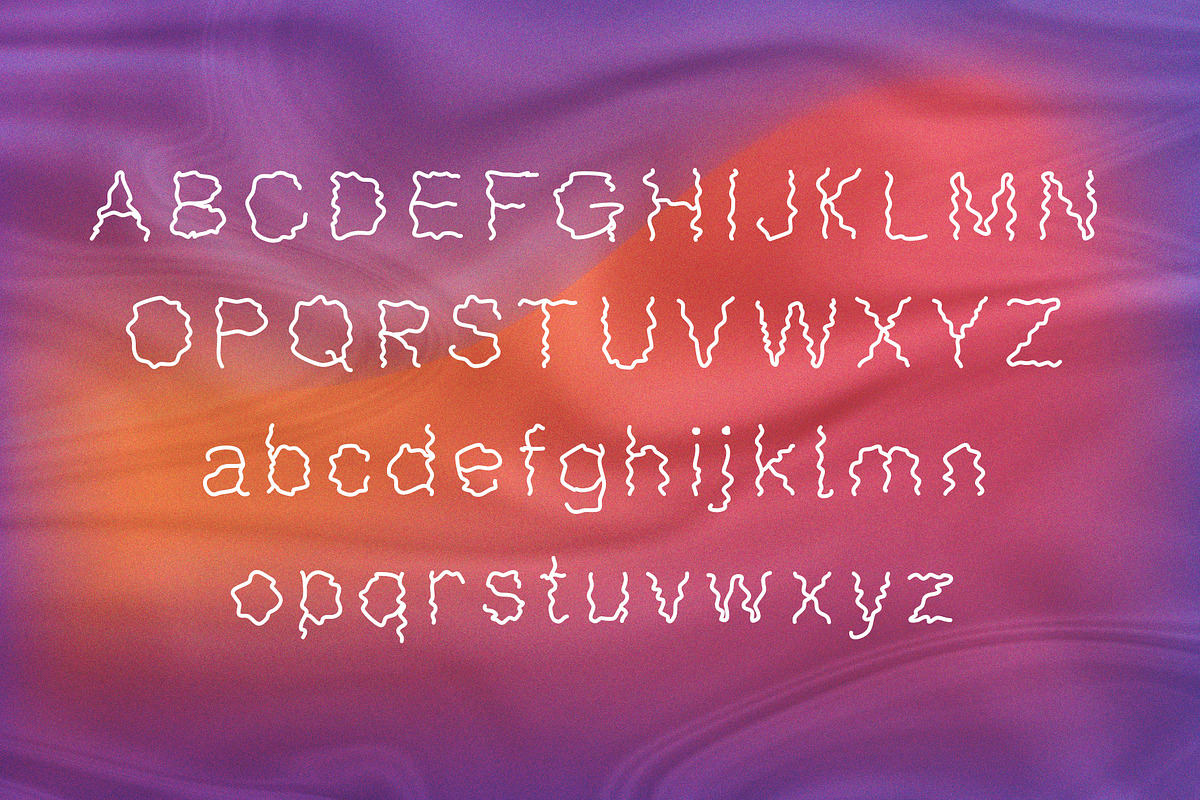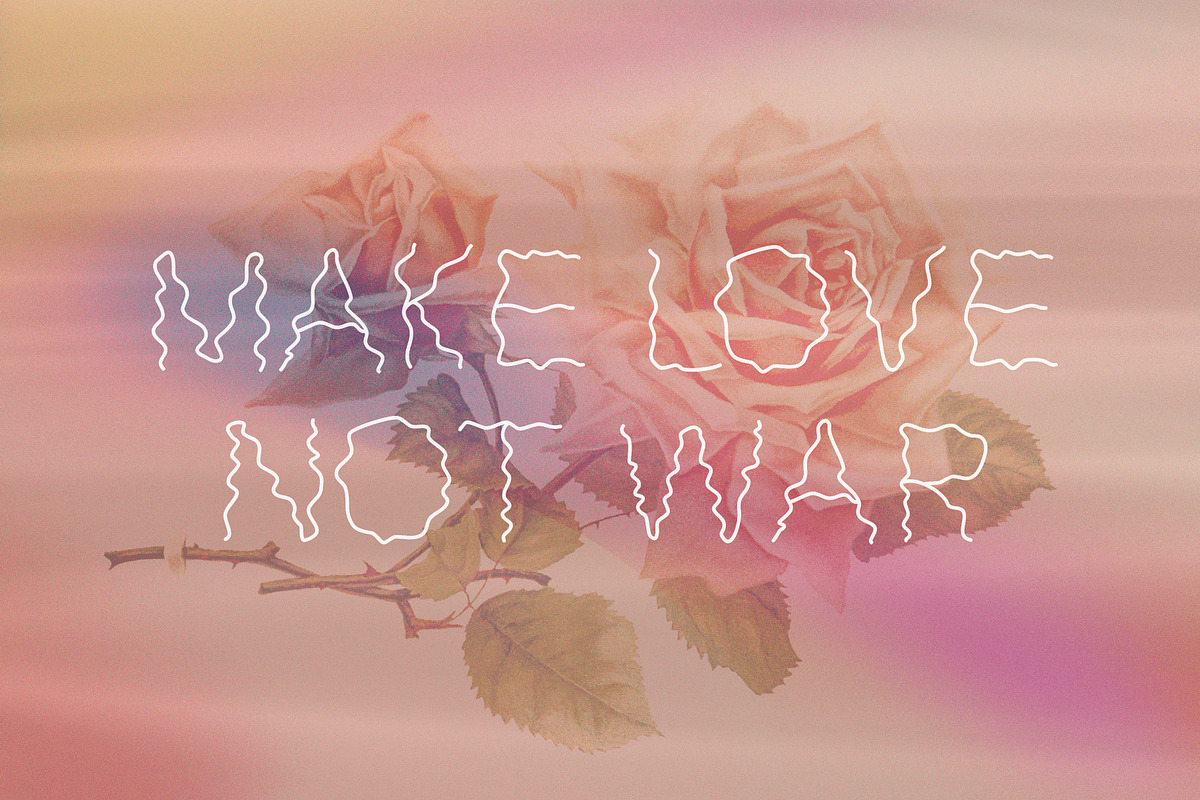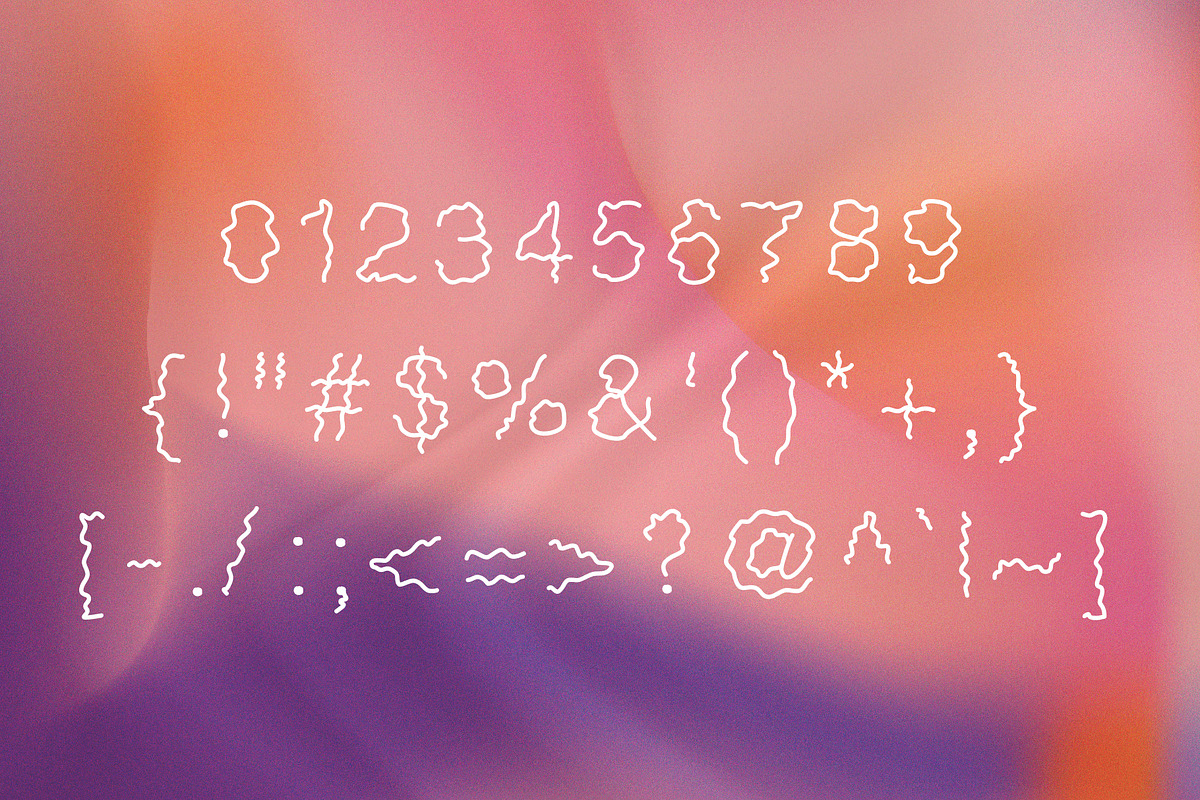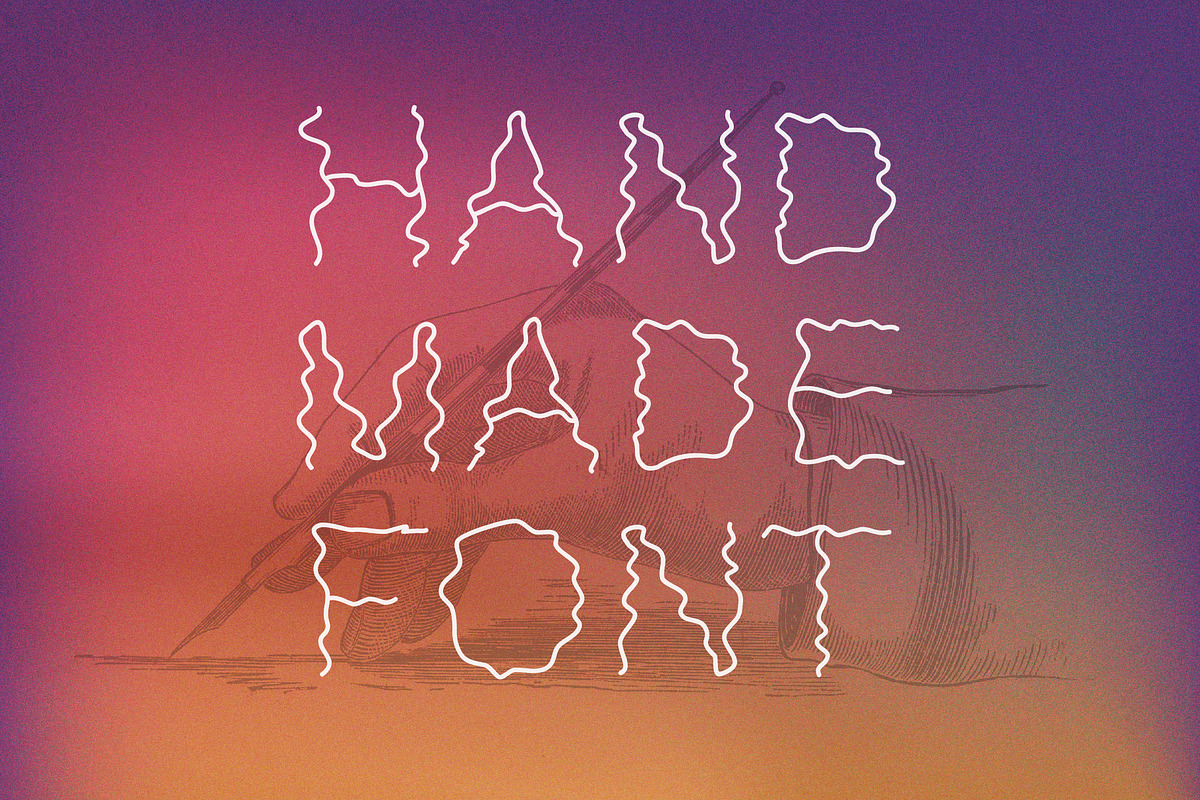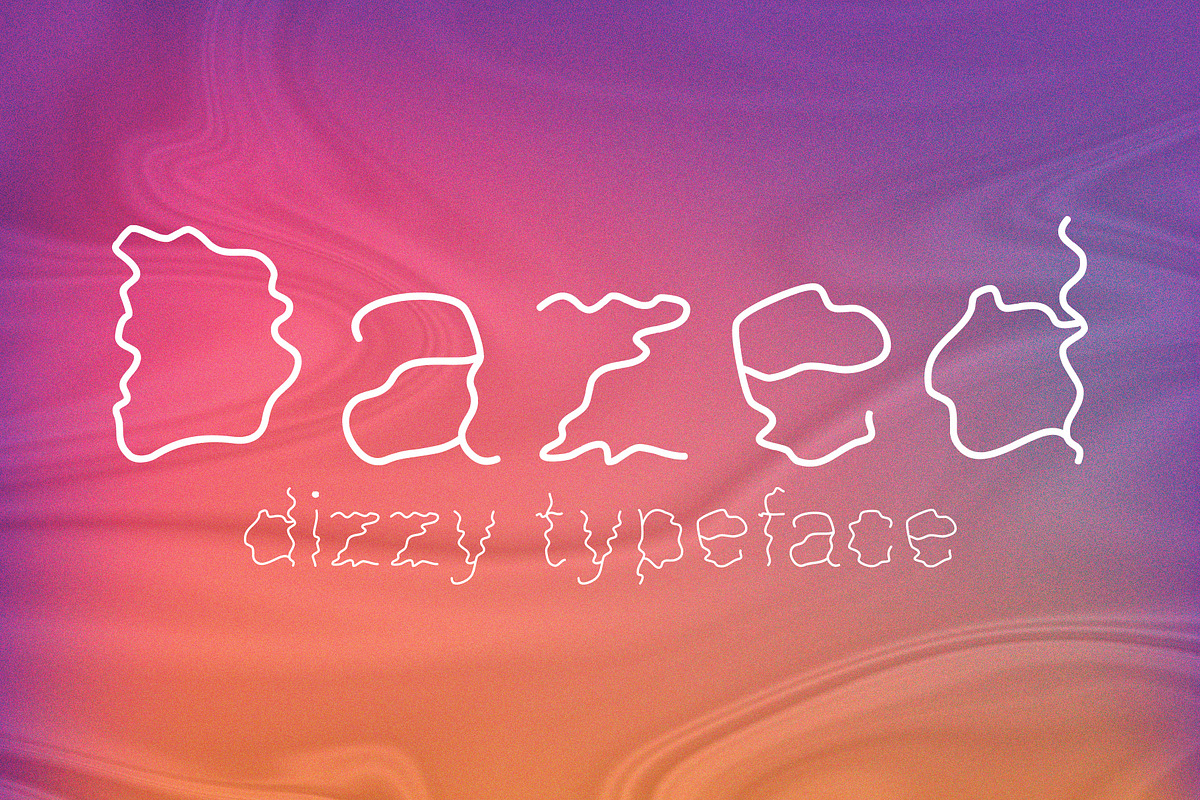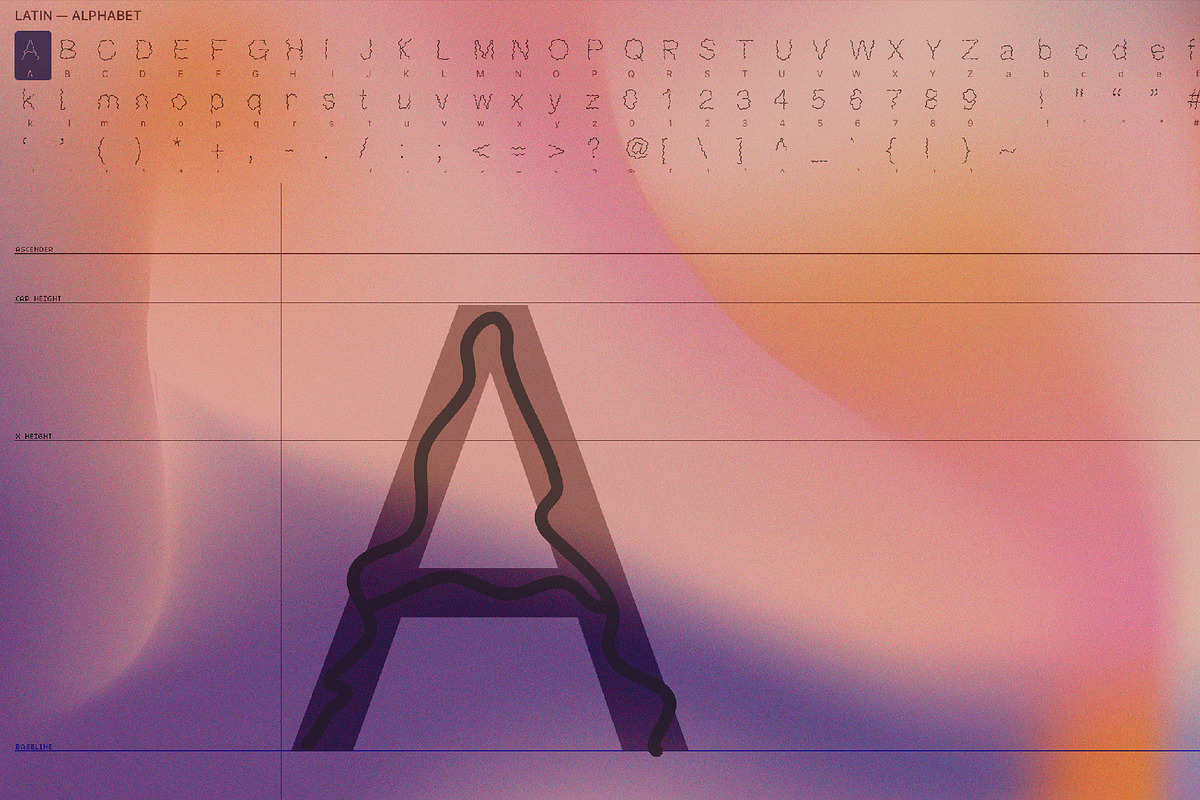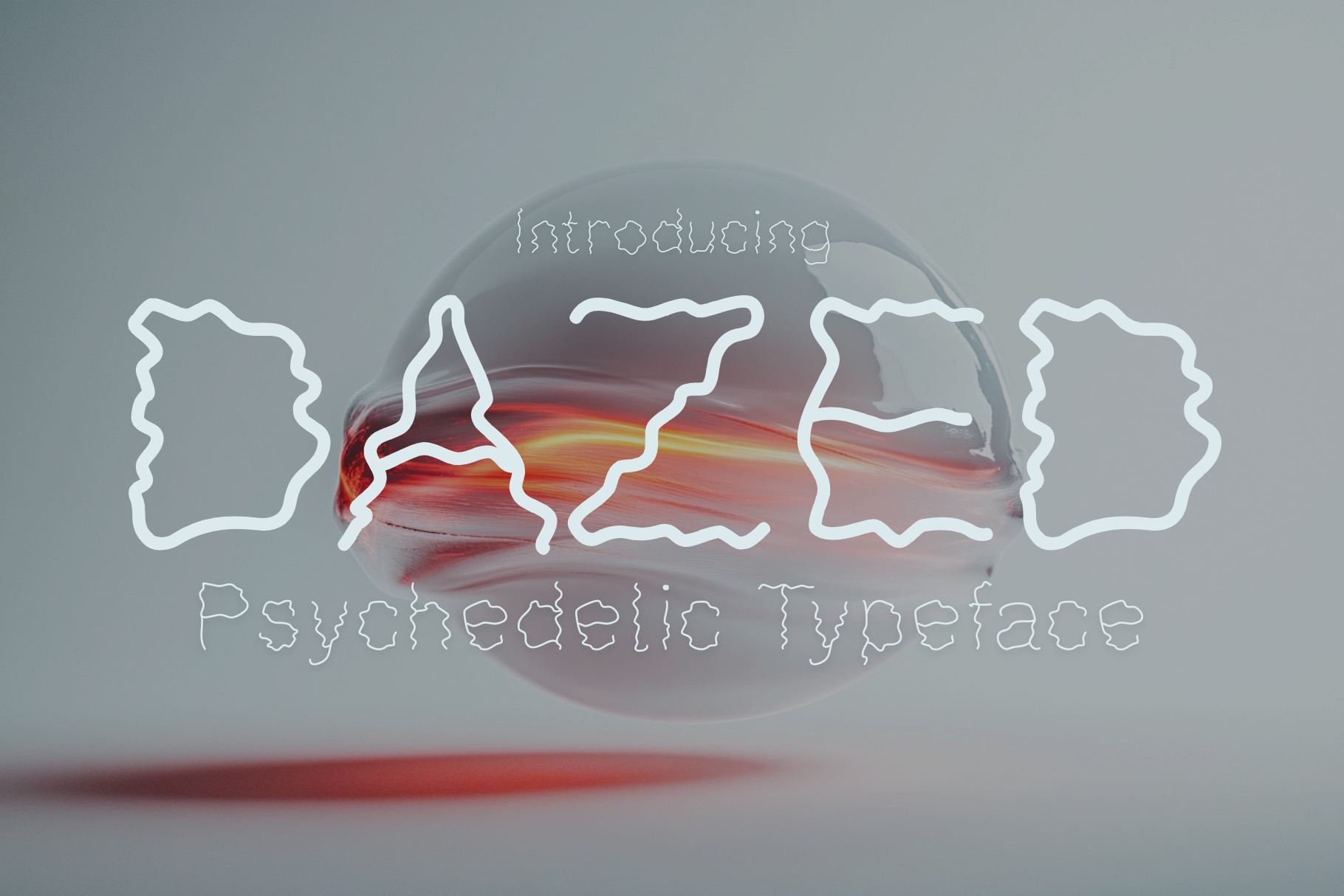
Dazed - Dizzy Typeface
Dazed is a handmade typeface which was created during an overnight train ride. The wavy swooshes and curves are the end result of the train shaking/moving. What started out as a fun experiment , turned into a unique typeface.
The organic feel of Dazed evokes a psychedelic vibe which you can use to take your designs to a new level. The font is great for posters, flyers, apparel, quotes, greeting cards, product packaging, album covers, movies, and more.